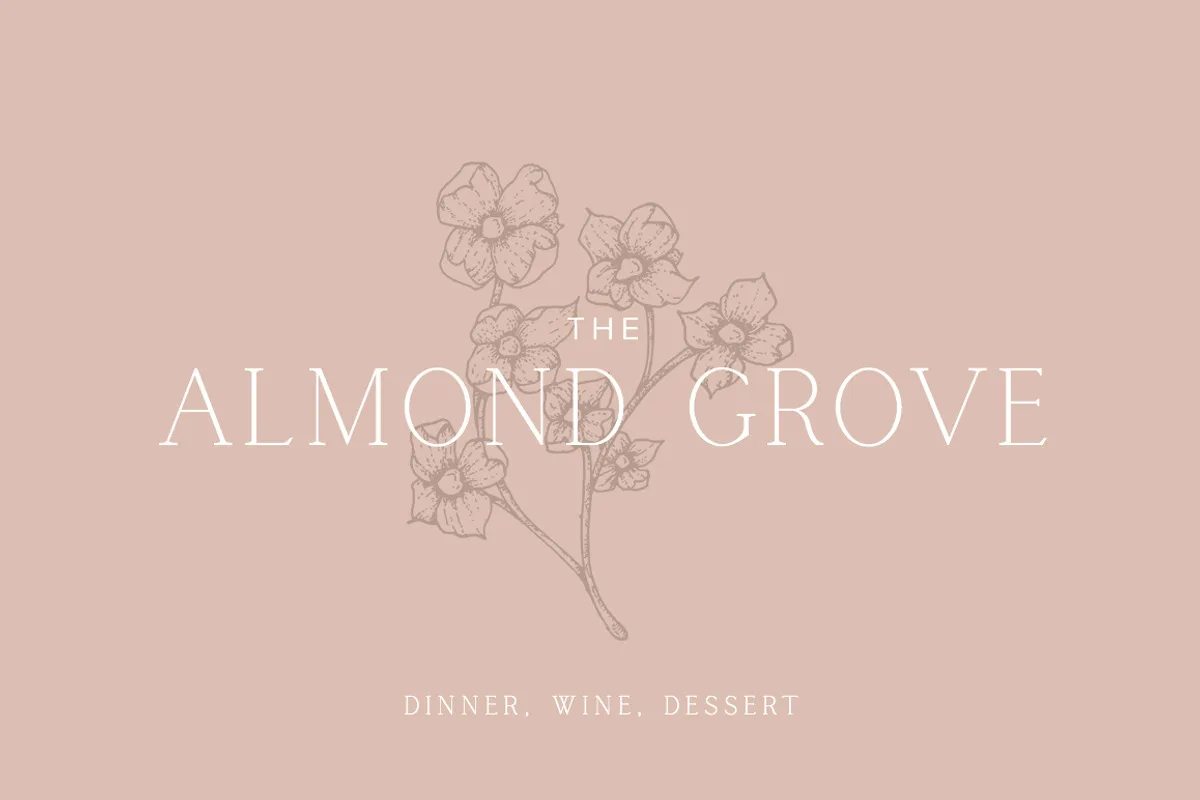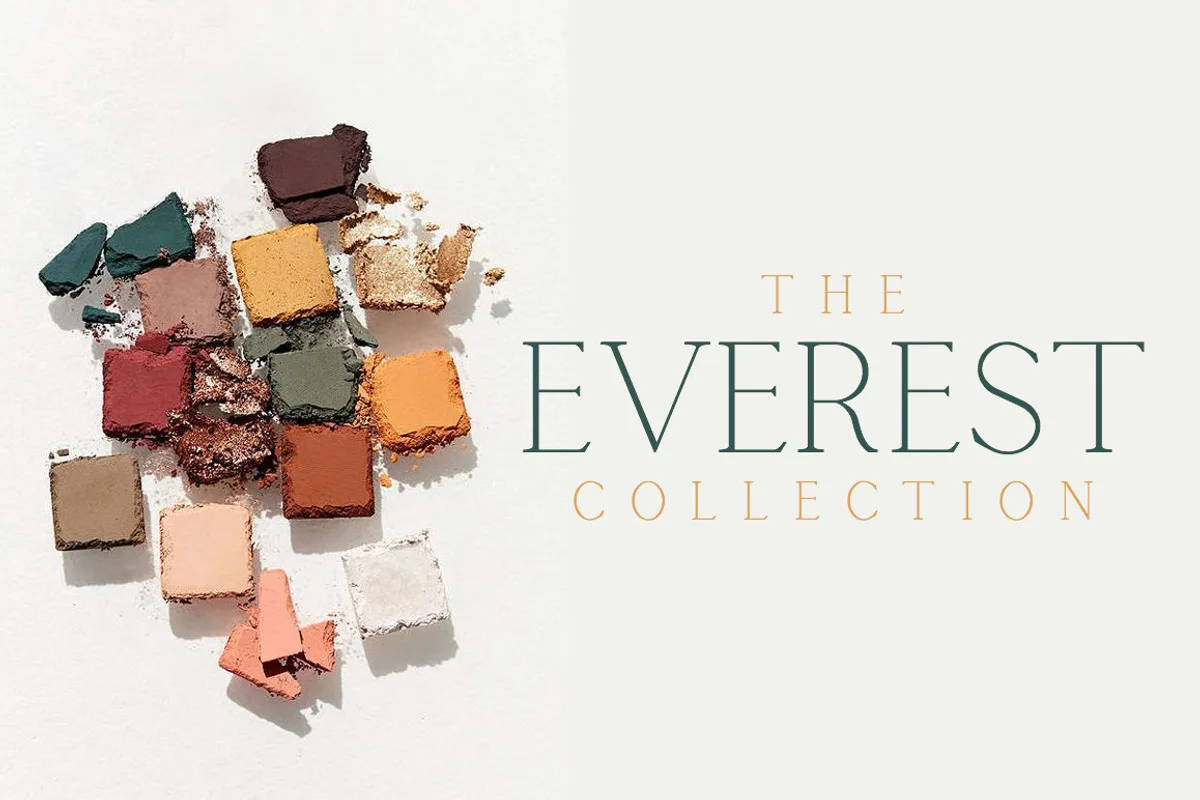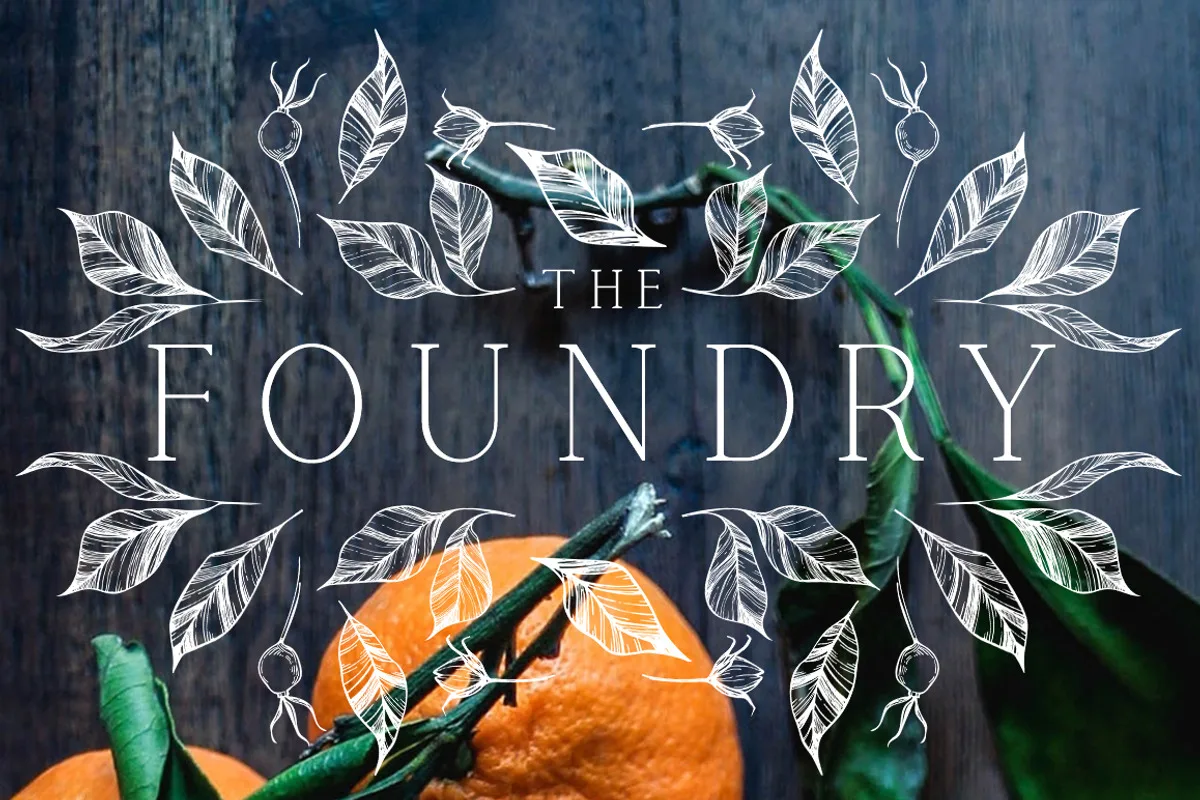
This delicate yet classy all-caps serif typeface features clean serifs and a narrow profile. It’s perfect for gorgeous logos, titles, invitations, and more!
Calgary also pairs beautifully with many of our other fonts (Oxford, San Clemente, Sydney). It’s a perfect font to have in your design arsenal!
Calgary Serif Font